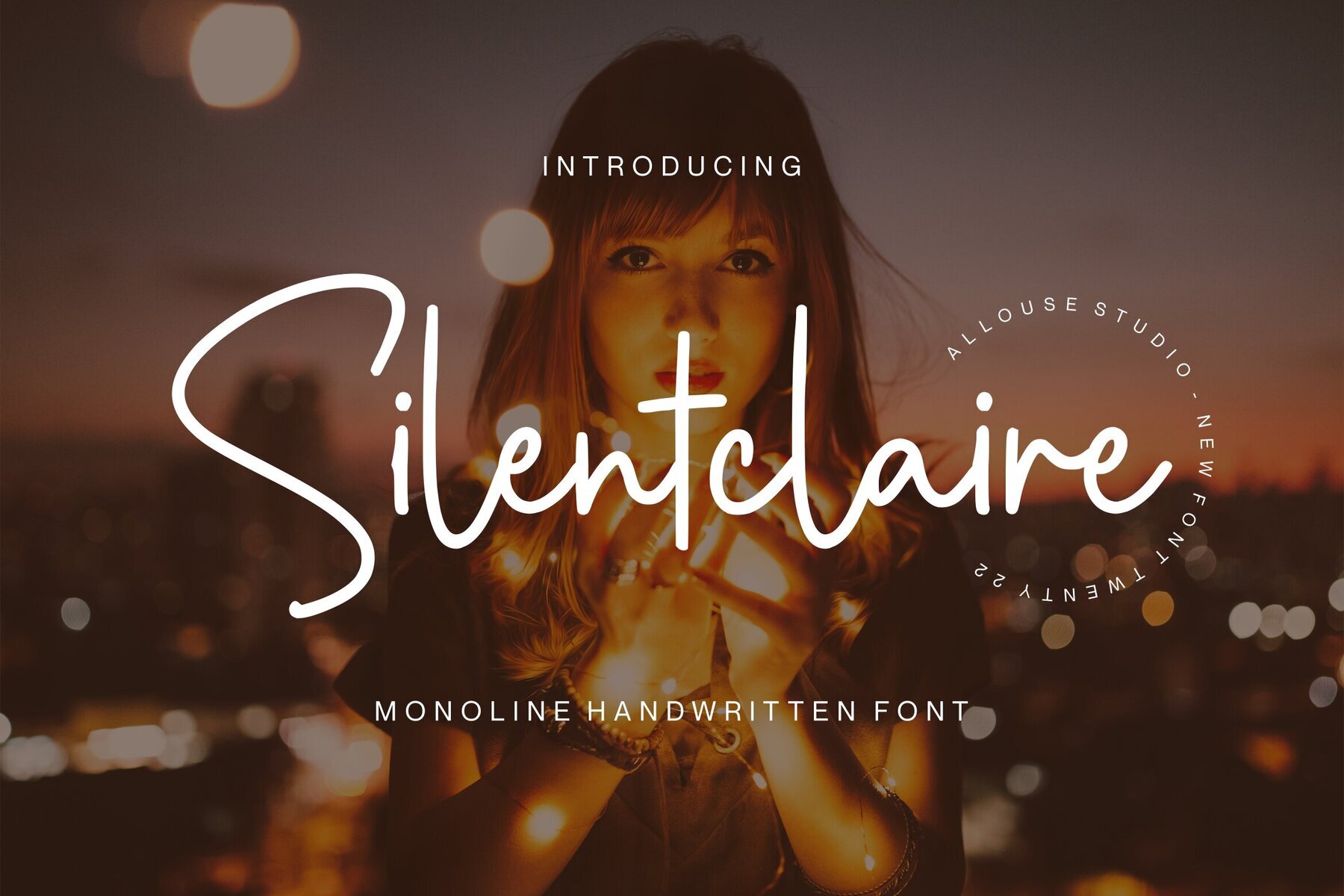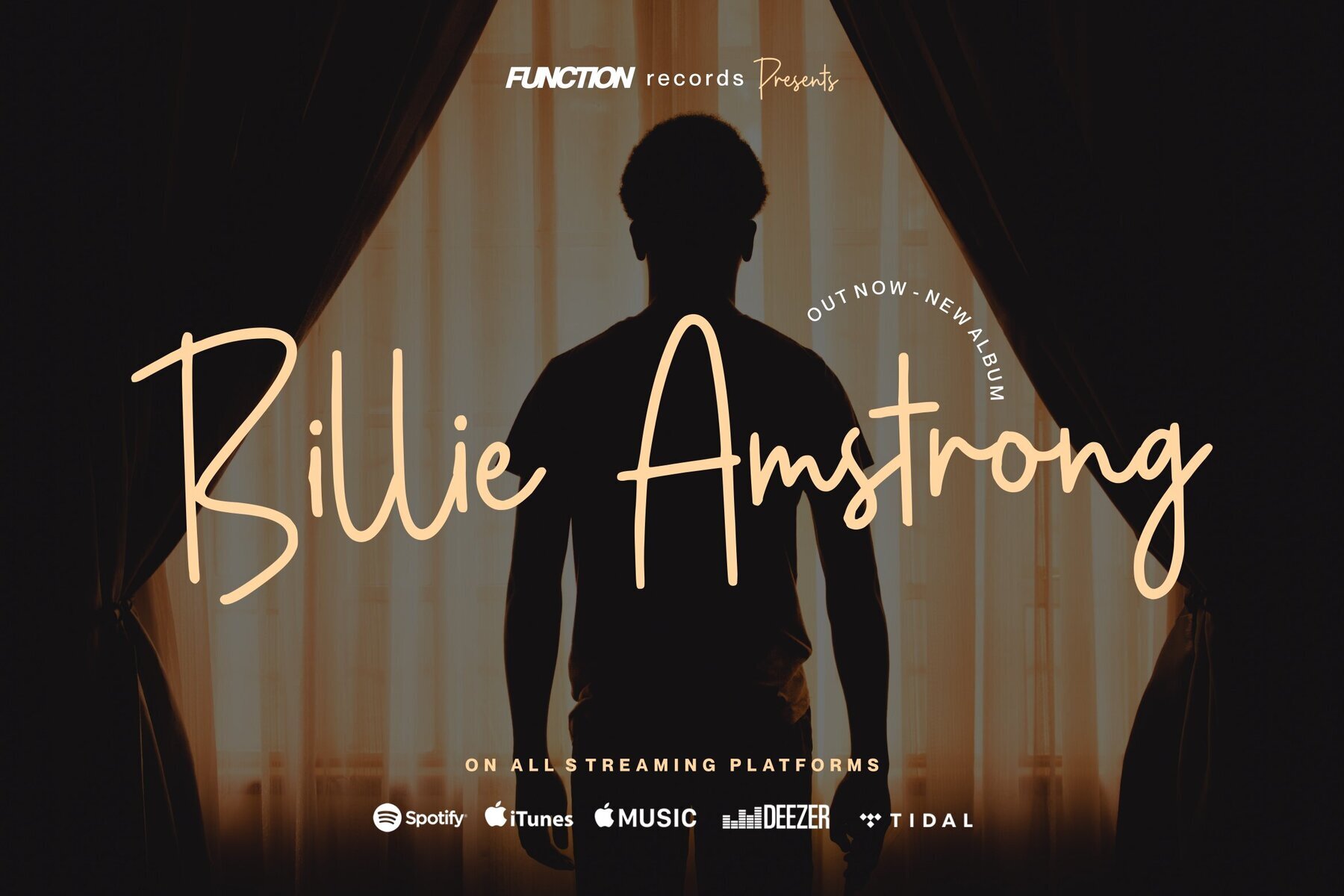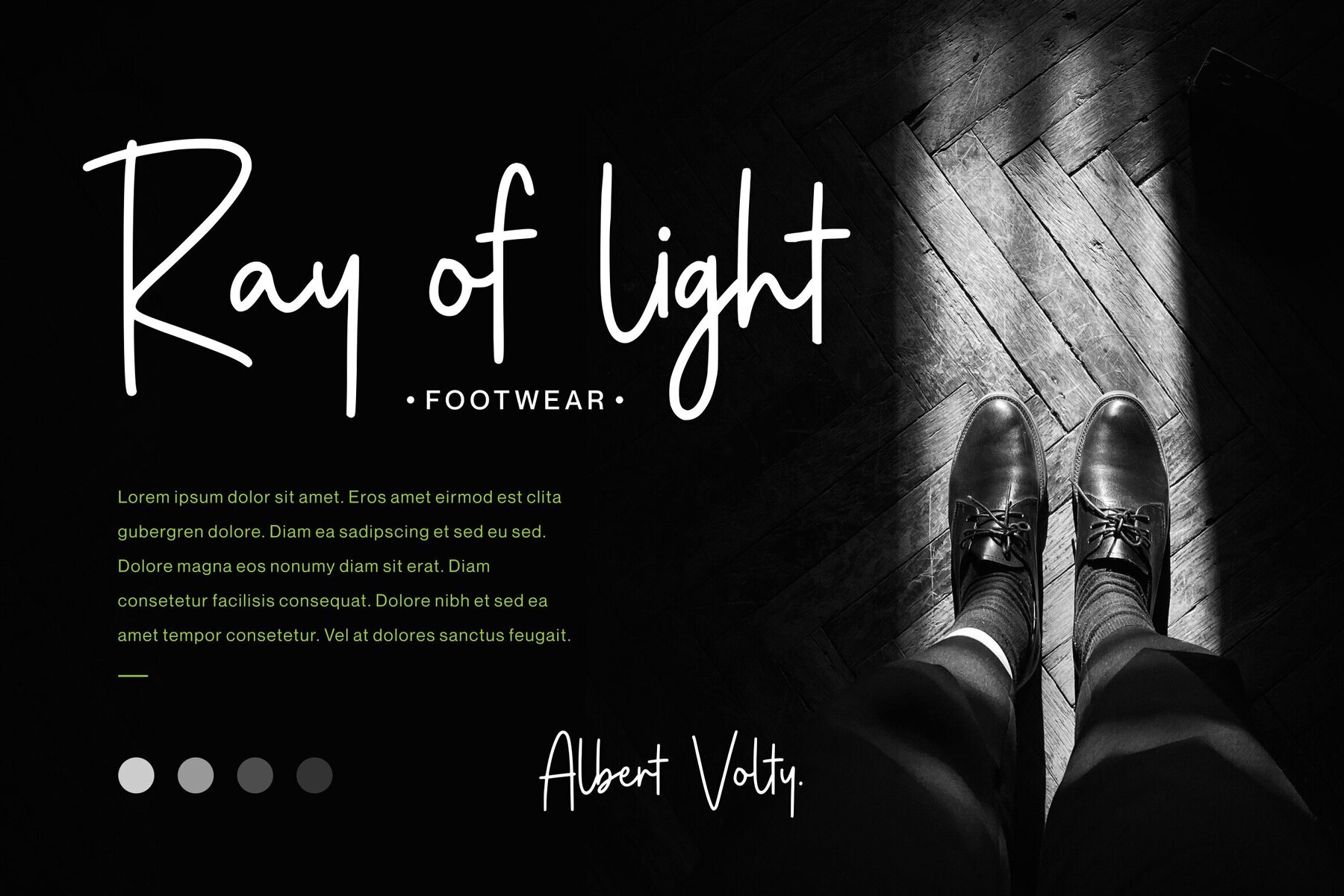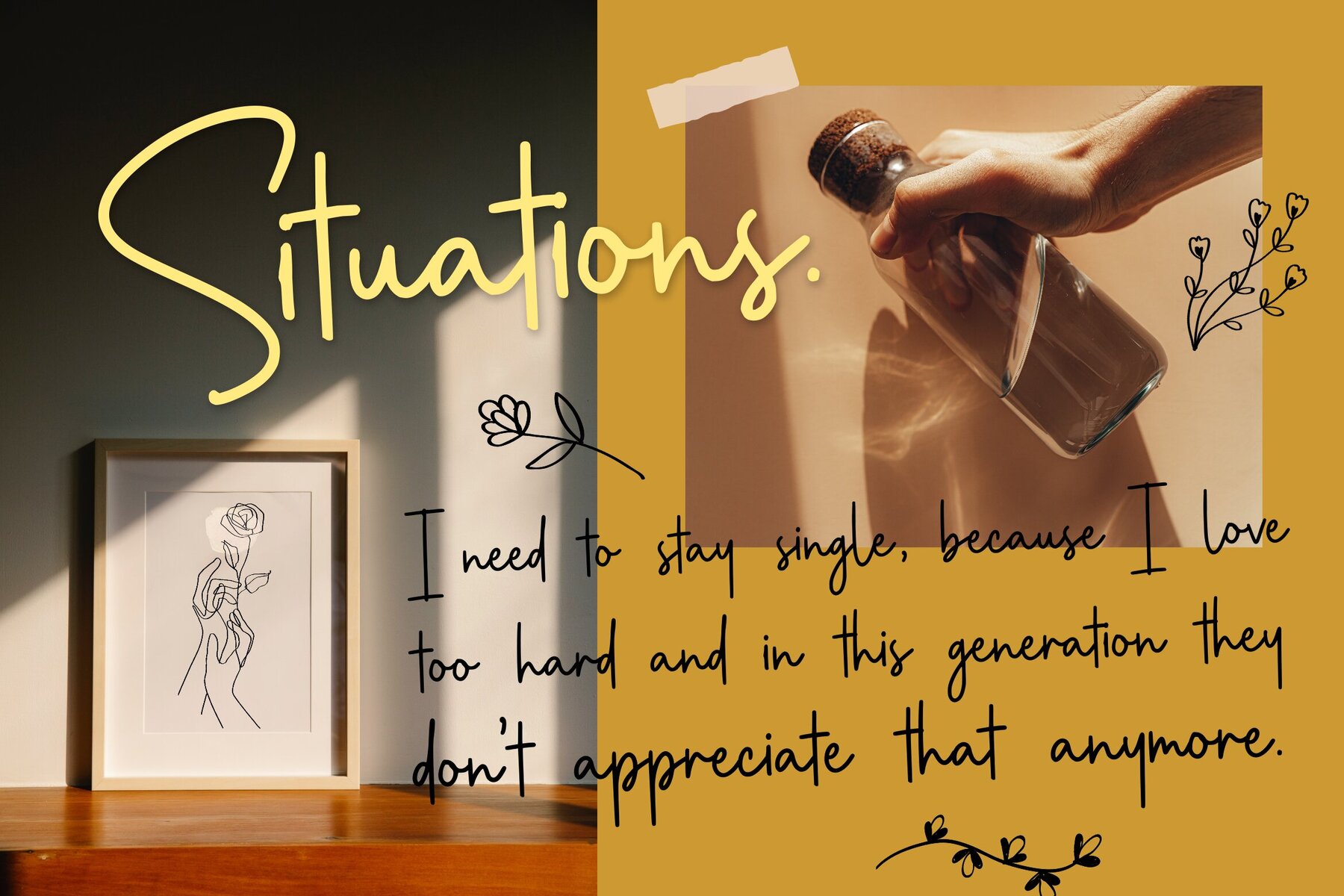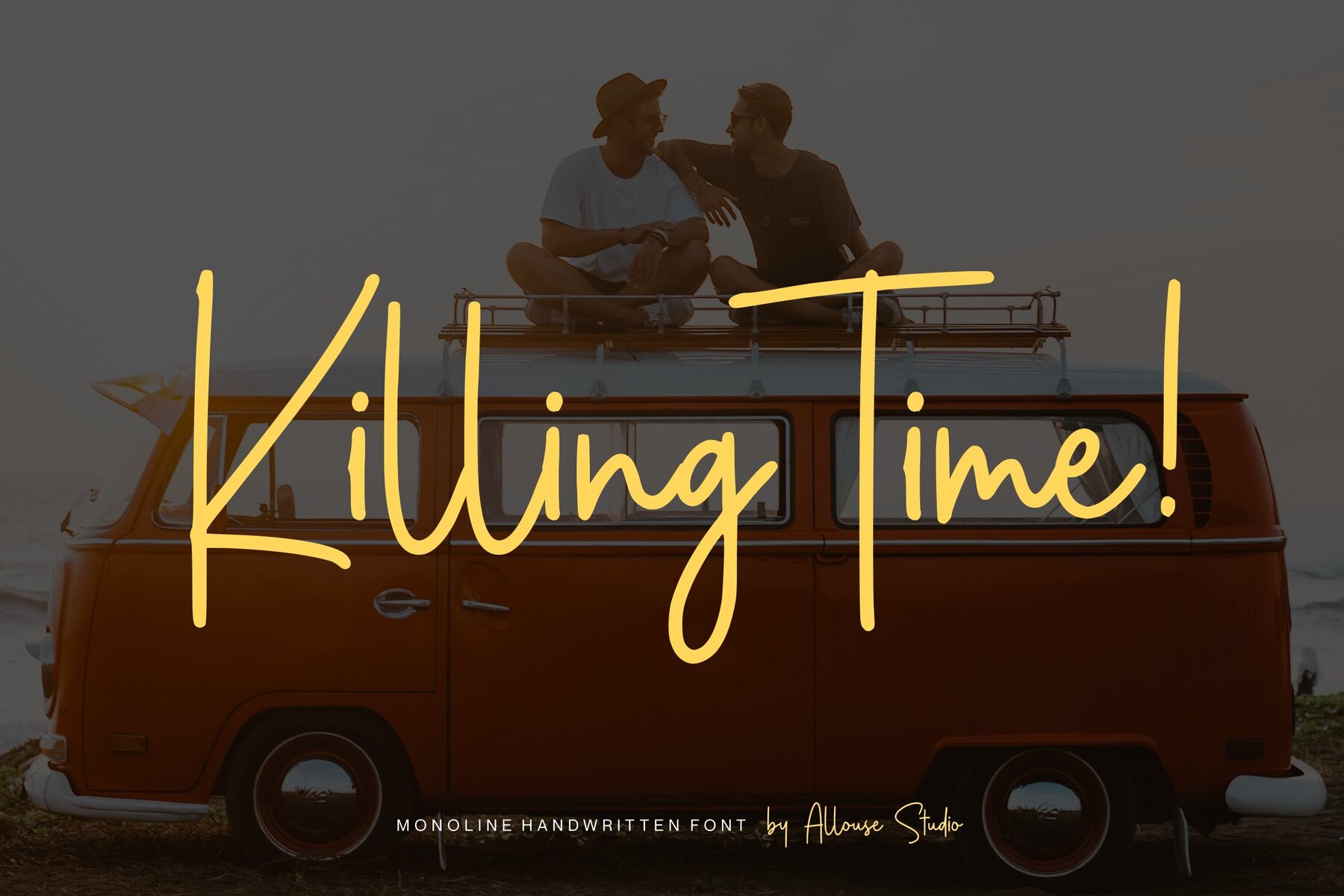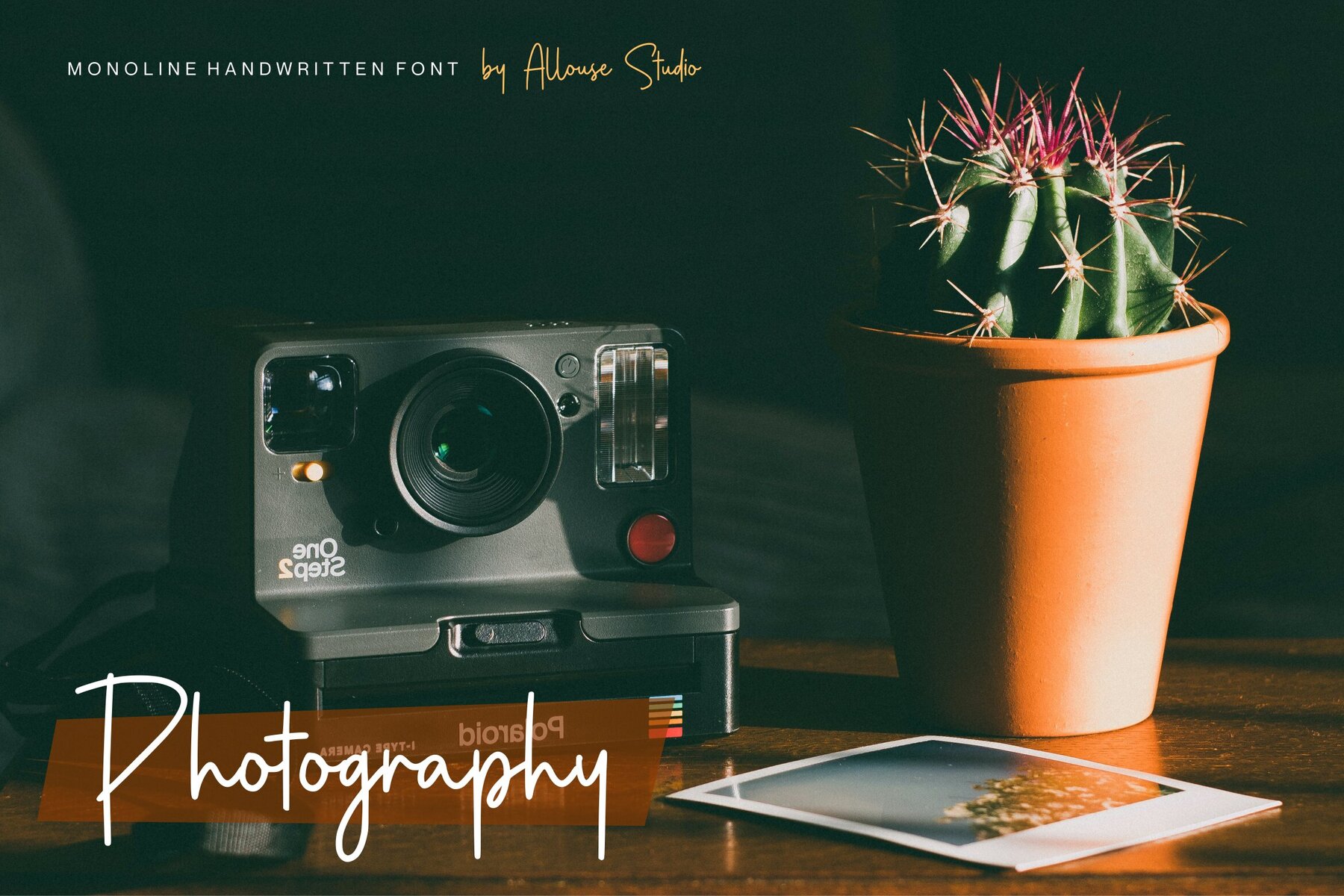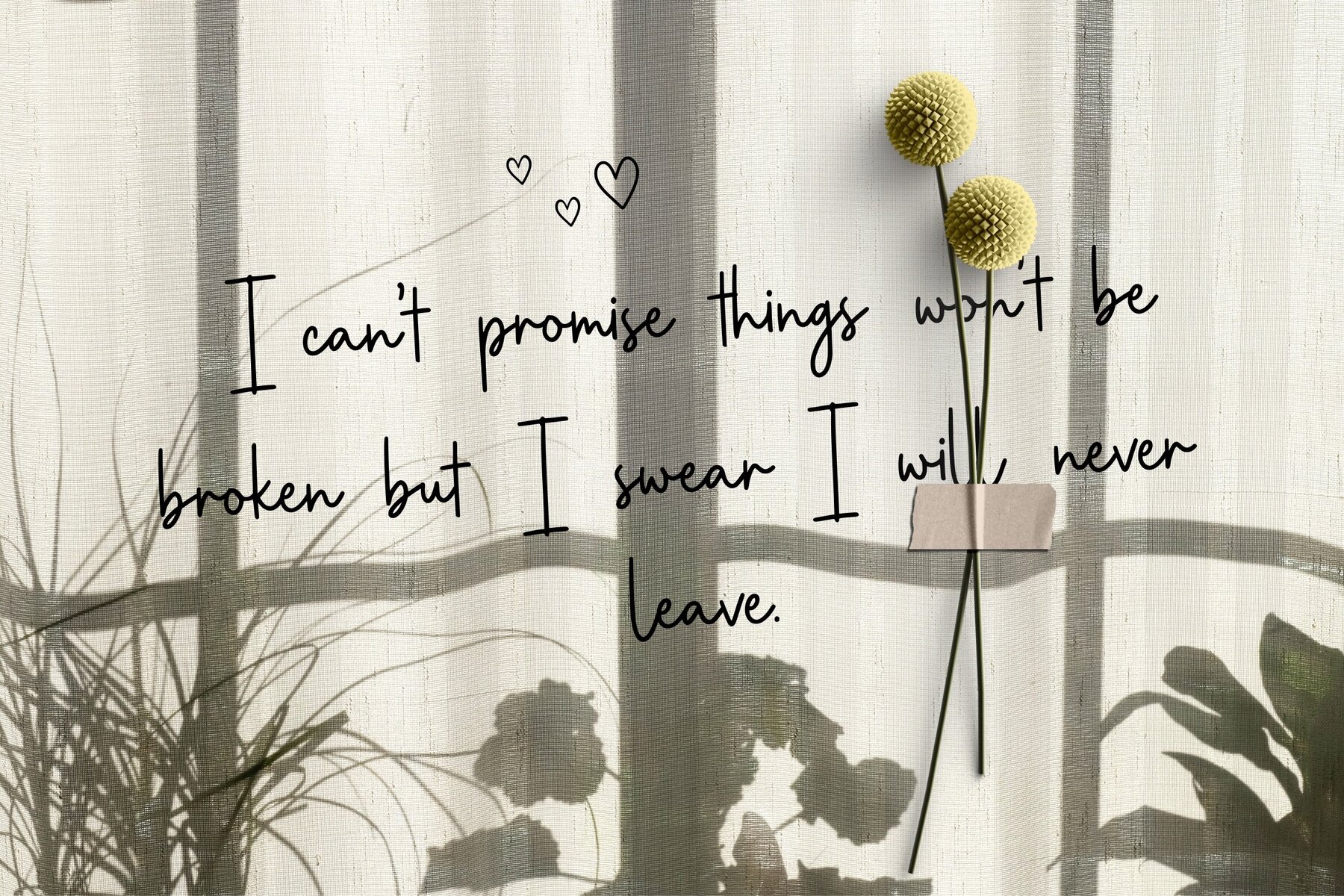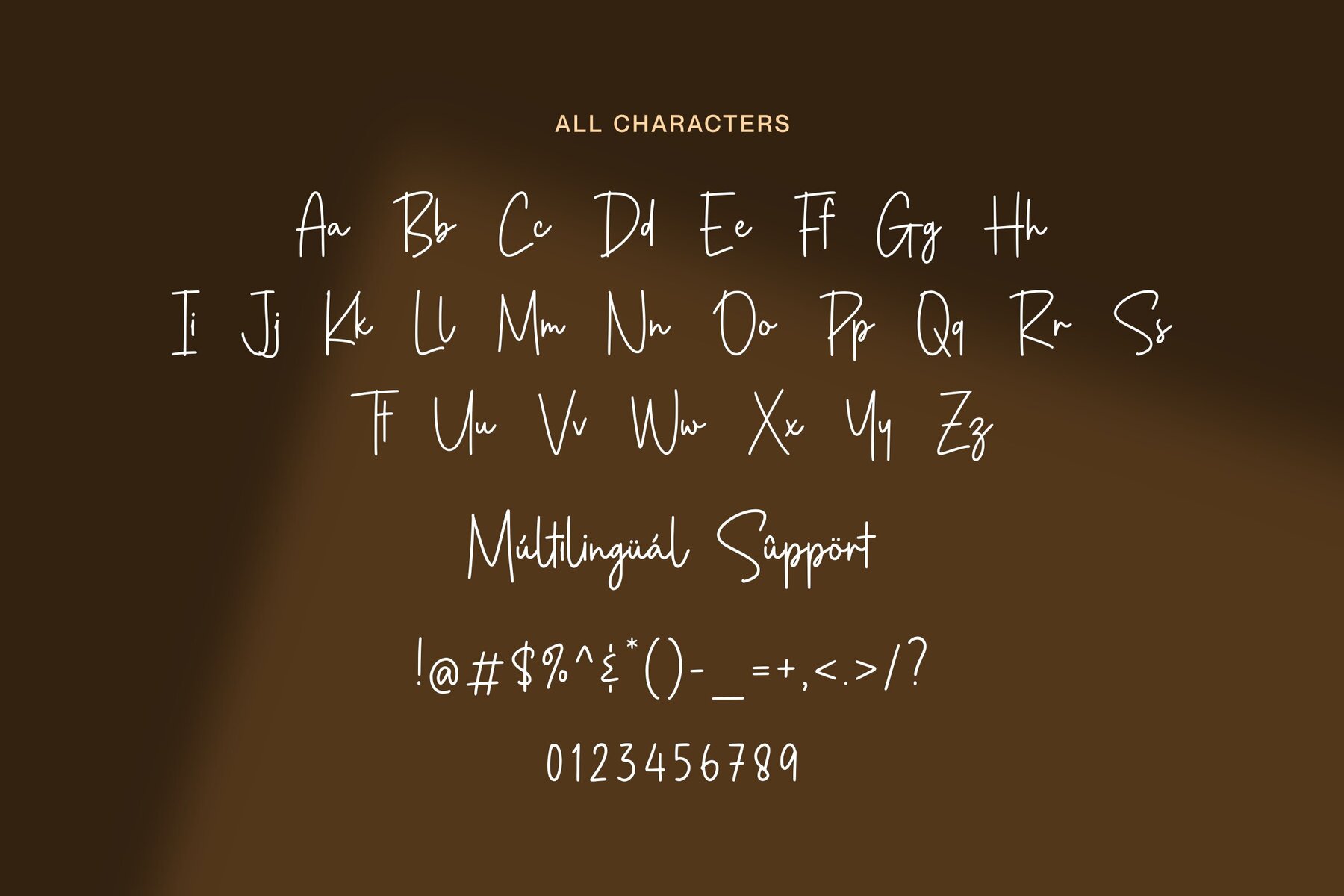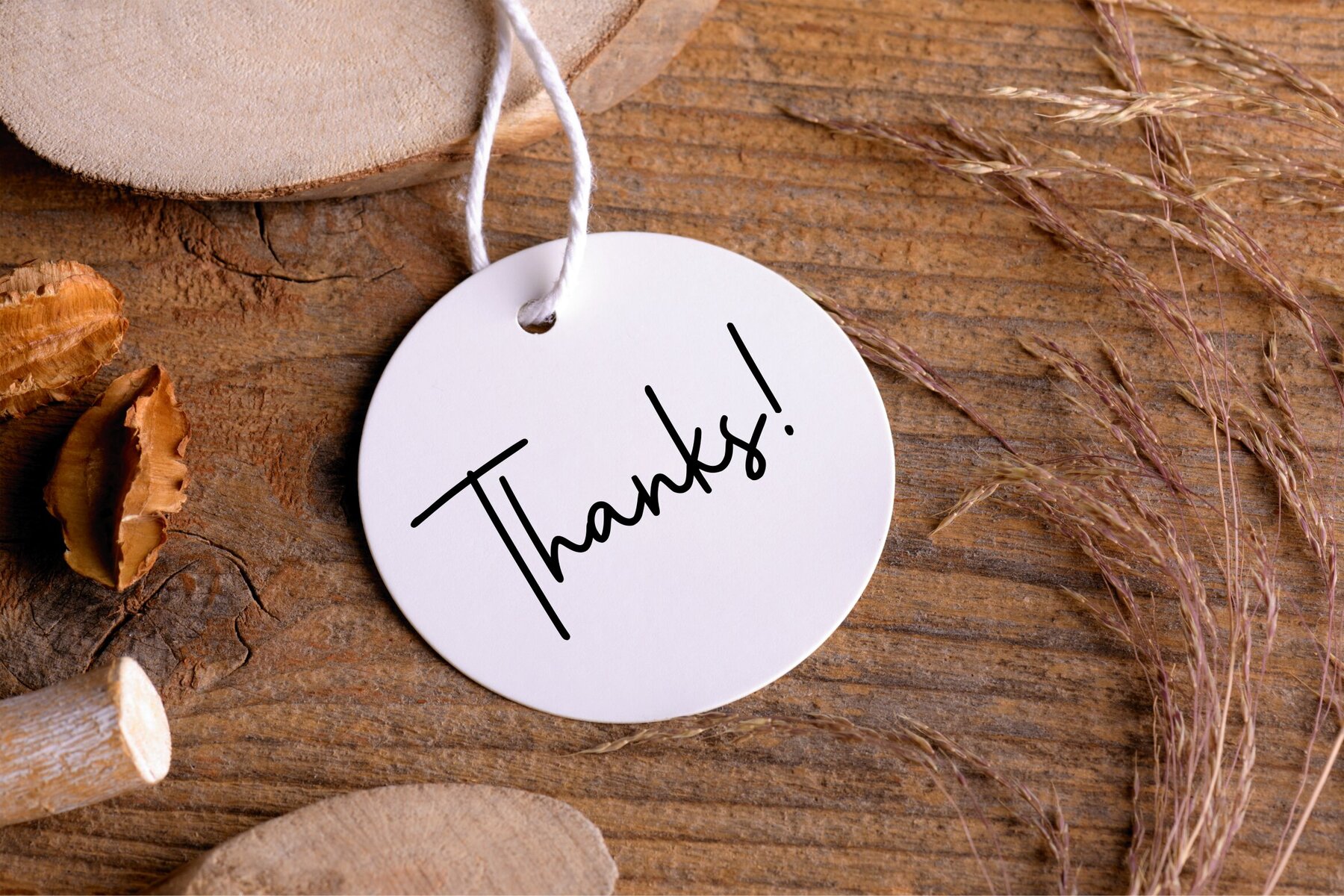
Silentclaire Font
Silentclaire Regular
Silentclaire by Allouse. Studio offers a harmonious balance of sophistication and charm, making it an exemplary choice for various design projects. Whether you're working on product packaging, crafting a branding project, or curating a magazine layout, Silentclaire provides the seamless elegance needed to enhance your visual storytelling. Its adaptability extends beyond traditional media, finding a perfect place in digital realms like social media campaigns and wedding invitations. Silentclaire's intrinsic elegance allows it to express words beautifully against any backdrop, ensuring your message resonates clearly.Silentclaire: A Versatile Typeface for Elegant Designs